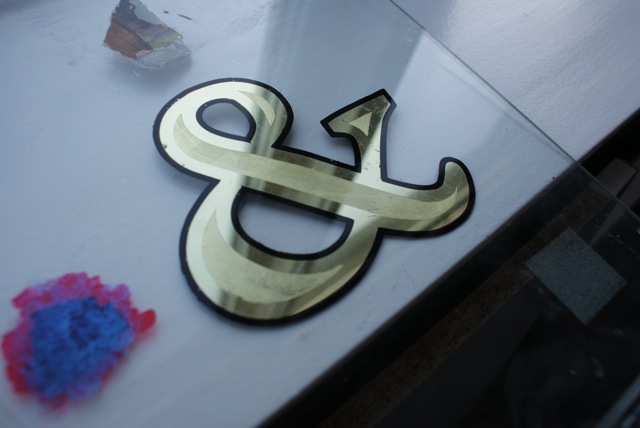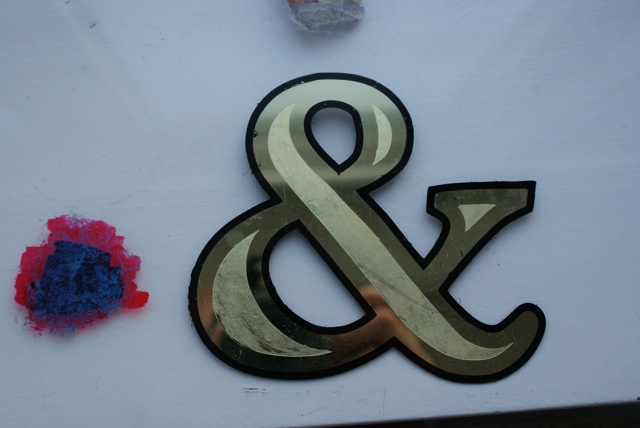
Hi there.. Yesterday I used my last gold and tried to make a watergilded letter made with a computercuttet vinyl mask.
-I first pelled of the outline, paintet it black with 1shot
-Pelled of the centers and paintet it with 1shot goldsize
-When both the black and the size where tacky I watergilded to whole letter with 18k lemon gold.
-After burnishing I paintet the whole letter again with black 1shot and pell of the excess vinyl around the letter.
-Done? Or should I give it a coat of yacht varnish?
I know the result could be much better when I have practiced some more.
Tell me if any mistakes or the letter wouldnt last in a store window?
Lars,
Show me a detail of the black outline and the gold just next to it.
And a detail of the border between the mat and glossy gold.
Looks like a very good test piece, but maybe there is room for progress.
This is the best close up my camera can take.
I think maybe the matte center is too matte?
A help for myself next time is to let the black outline dry for a longer and some ... more practice with laying the gold correct! I used 6 sheets of gold for this letter and its only 10x12 cm
When I use the gilding tip I make it static with my hair, but when I put it on the gold it just suck it up and the gold become curly
Looks good lars.
Keep practising.
A couple of tips Lars,
1.
When picking up the gold, you actually don't want static. It is the oil in your hair that is effective in picking up the leaf. You can apply a little oil of some oily type of cream to you hair (or back of your hand) to make it work better. Don't rub the gilder's tip vigorously through your hair, building up a static charge. Just one pass should be enough.
If you still have problem with static electricity causing the gold leaf to leap onto the tip, breath on it first to discharge it.
2.
When you paint the clear for your matt centre, double check and triple check that you have it completely covered with an even layer. I notice you have some missed areas on the bottom left curve. It's hard to see missed patches until it is gilded, but then it's too late.
You can apply some powder first, either talc or whiting (fine chalk powder), then when you paint the clear, it will be much more visible.
And I don't think it is "too" matt. It has good contrast and it isn't dull from being too soft or over-rubbing. I'd say it's a good matt finish.
3.
When you weed out the mask, clean and trim up the line any areas so that you don't get black spots in the gild.
Also, after when you gild it, look at it with light coming through to check for holes or cracks. Patch up any visible holds or defects before you back it up.
I'm not a big fan of gilding over a masked edge, but the result you got is quite good, especially the edge of the matt centre. Personally, I prefer to do the water gilding first, then fill in the matt later, but I'm not about to claim it is the only "proper" way to do it. I just prefer the edge formed by a brush to a masked edge.
4.
For a shop window, definitely varnish it. If it's going into a picture frame, it doesn't matter.
As soon I get some more gold I'll try to lay day the gold so it stays in the size of 8x8cm and not less